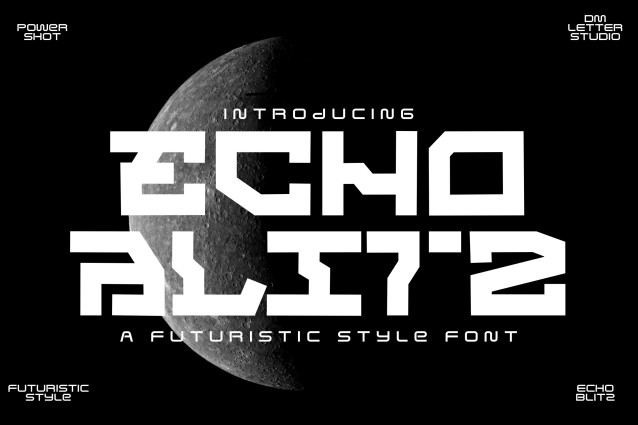
Echo Blitz Font
Echo Blitz Font is a cutting-edge, futuristic font designed with bold, geometric lines and sleek styling. Perfect for tech-inspired projects, gaming titles, sci-fi posters, and digital branding, this typeface delivers a high-impact, modern look that feels both powerful and advanced. It’s ideal for designs that need to look ahead of their time.